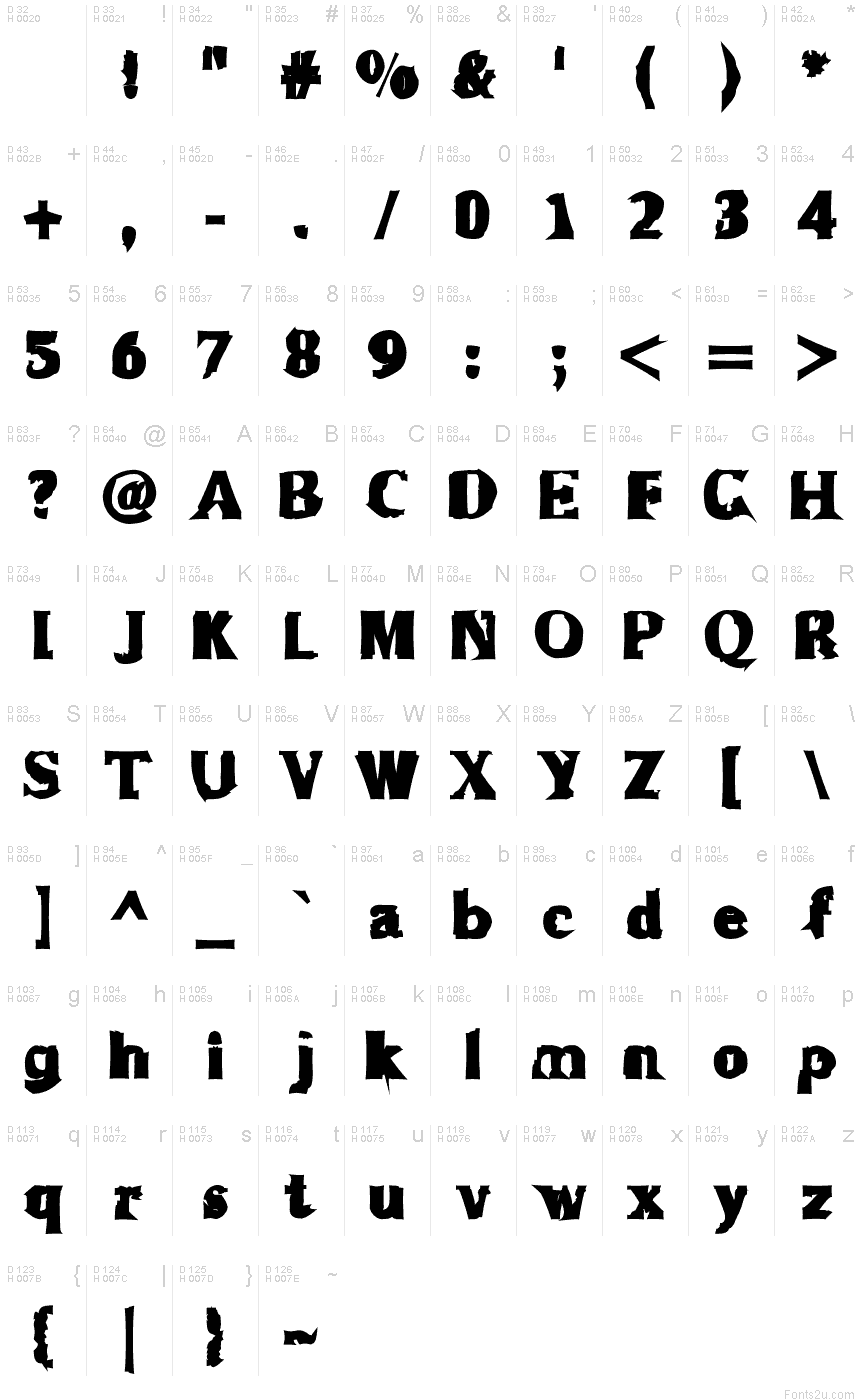
Rugguggla
Rugguggla by Tarm Saft is a free distorted display font with a warped blackletter mood. The letters feel chunky and unruly, mixing blunt vertical weight with pinched inner shapes and torn, claw-like corners that give the whole font a scraped, hand-cut presence.
It works well for poster headlines, underground music artwork, horror zines, game title cards, and beer or festival branding where a rough medieval echo feels more alive than formal. As a free font, it suits short cover lines, logos, and big wordmarks especially well, because the uneven silhouettes and heavy rhythm do most of the talking fast.